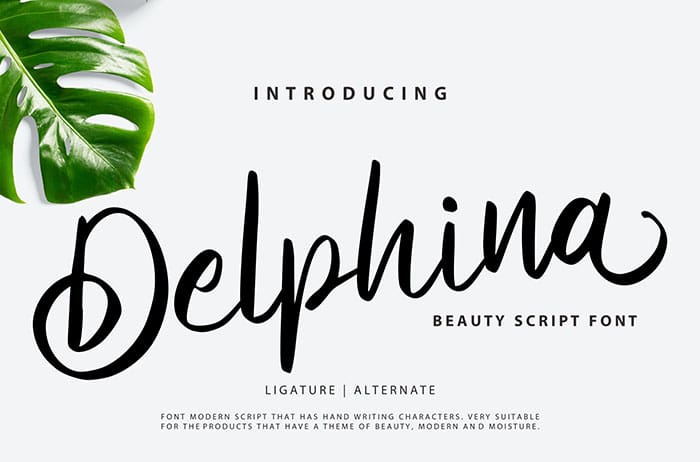
Delphina Beauty Script Font
Delphina is a beauty script font. This font is great for your next creative projects such as social media posts, Instagram posts, and much more. Get inspired by its unique charm. Thanks to Vunira Studio for sharing this font! Take a look at this portfolio for more of his stunning fonts.